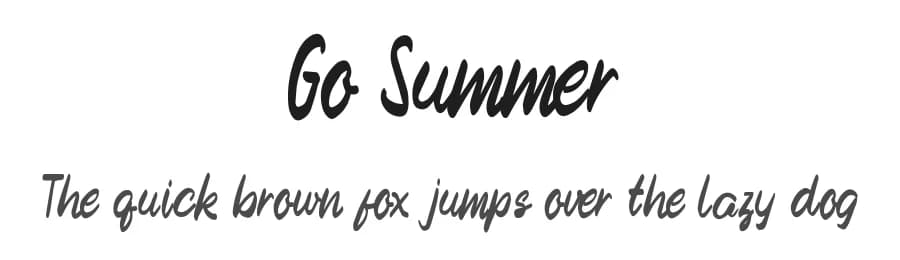
About Go Summer Font
Go Summer is a chic, flowing script font that emanates joy and versatility.
Go Summer Specifications
| Font Family | Go Summer |
| Full Name | Go Summer |
| PostScript Name | GoSummerRegular |
| Designer | Ony Studio |
Go Summer supports 197 languages.
Go Summer Font is a script font that shines as a display or heading face. Pair it with a clean sans-serif or serif font for body text β the contrast creates a clear hierarchy while the two styles stay balanced and easy to read.
Go Summer Font